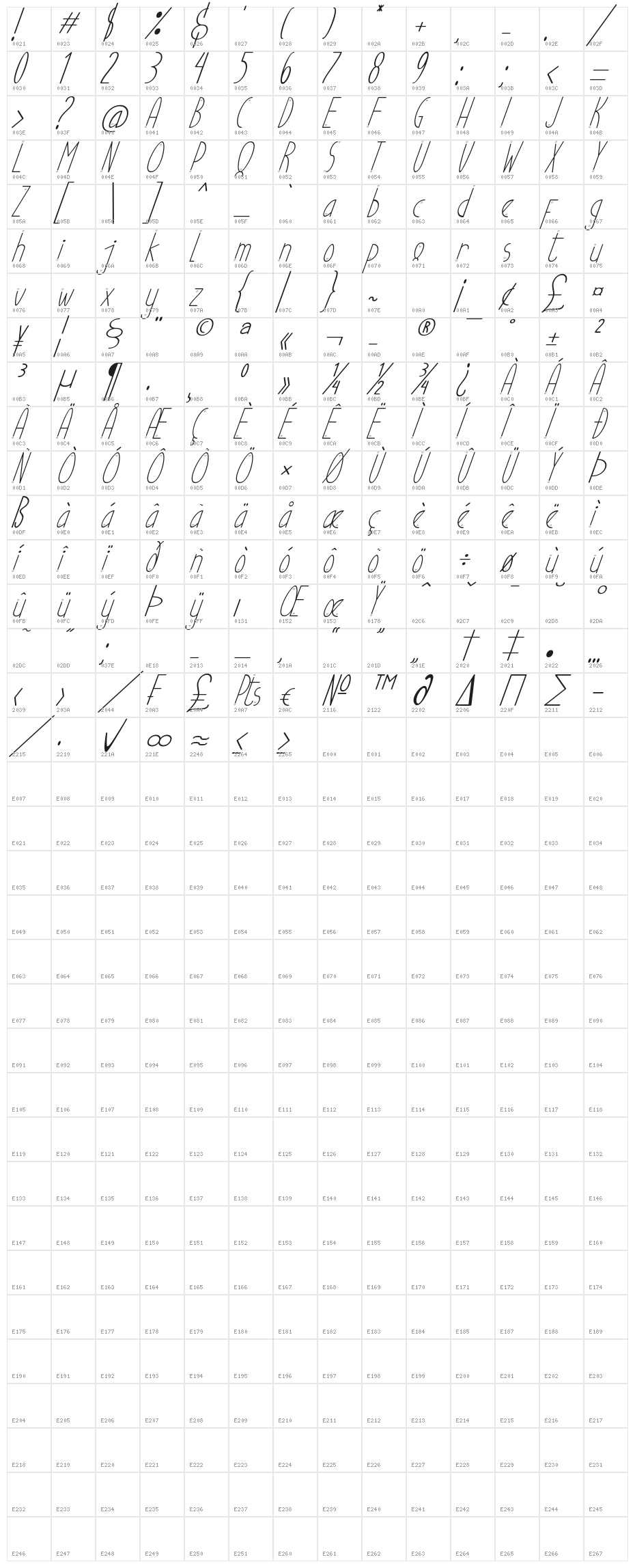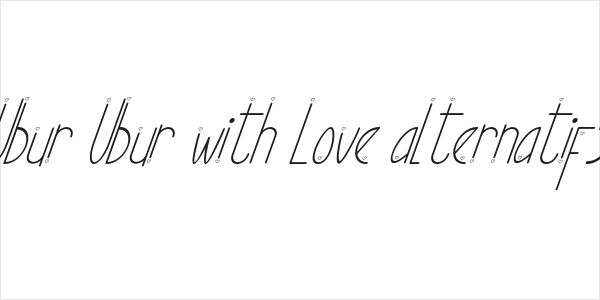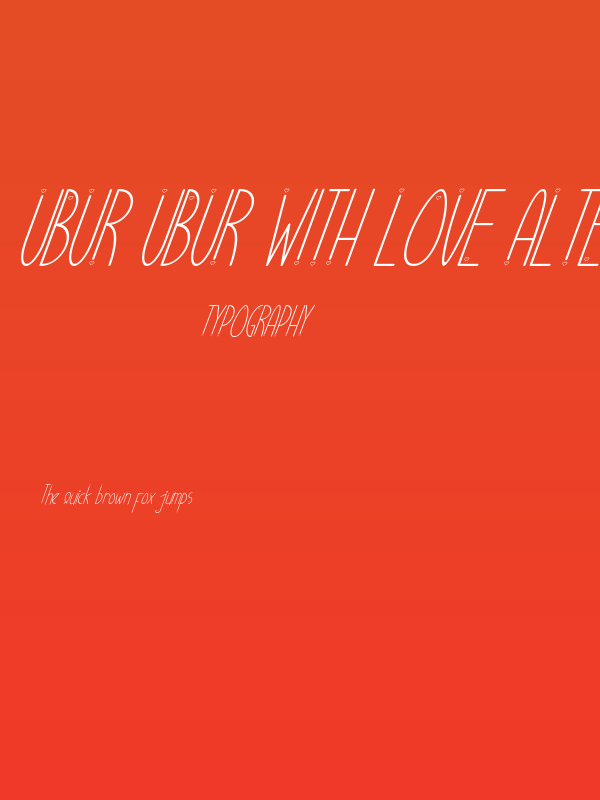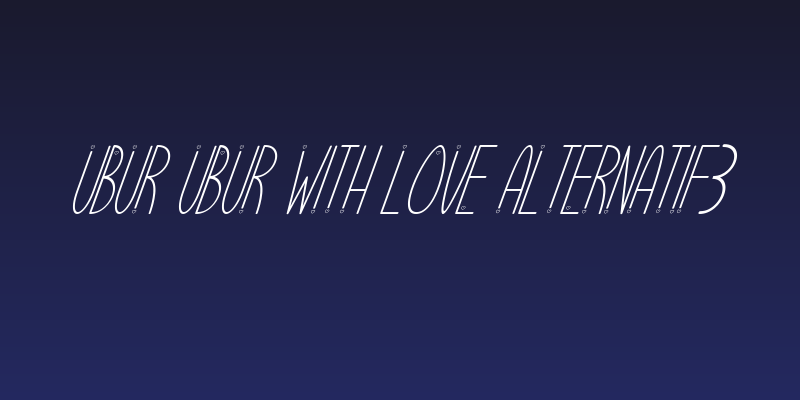
Ubur Ubur with Love alternatif3 Font
Ubur Ubur with Love alternatif3 Description
This font features a whimsical and playful design, characterized by its tall, narrow letters and delicate heart embellishments. The strokes are thin and elegant, giving it a light and airy feel. Each character is uniquely styled, with a consistent flow that adds a touch of romance and charm. The uppercase letters are particularly elongated, while the lowercase letters maintain a more traditional height. The numbers and special characters follow the same playful theme, making this font ideal for creative and artistic projects. Its unique style makes it stand out, perfect for adding a personal touch to any design.
| Use Case | Headlines, Logos, Artistic projects |
| Proposed Projects | Ideal for wedding invitations, greeting cards, romantic-themed designs, and artistic projects. |